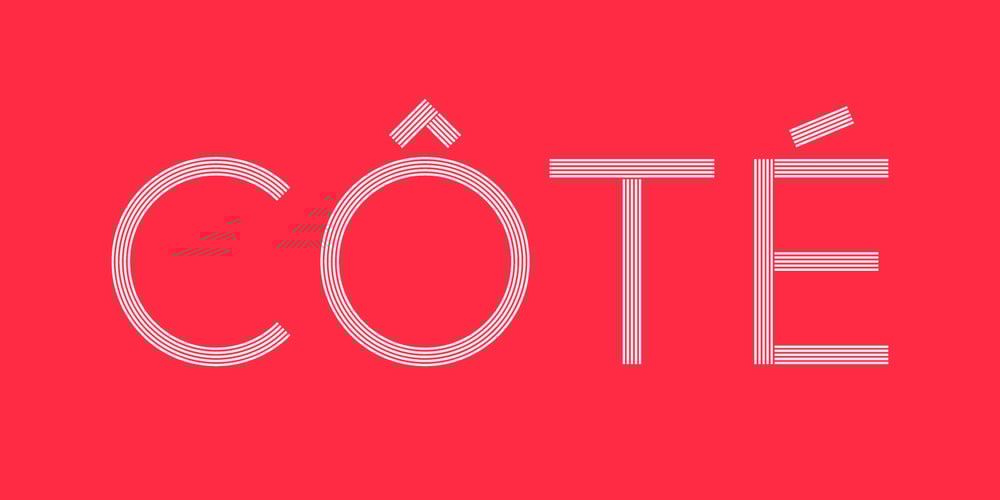
Côté
Côté font
Côté Font Family was designed by William Suckling and published by Studio Bayley. Côté contains 6 styles and family package options. A modern geometric sans serif that comes in 2 weights with 3 styles for each; Solid, Outline and Stripes. Côté was originally designed as a purely striped typeface but evolved to more weights to create a fun and playful typeface that can be layered and scaled. The solid weight allows for title or body copy while the stripes should be used as large as possible!